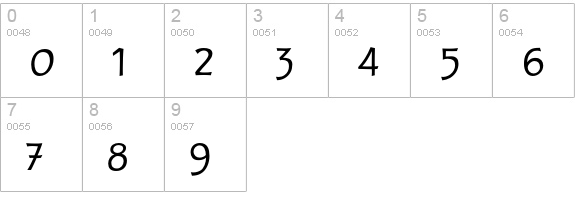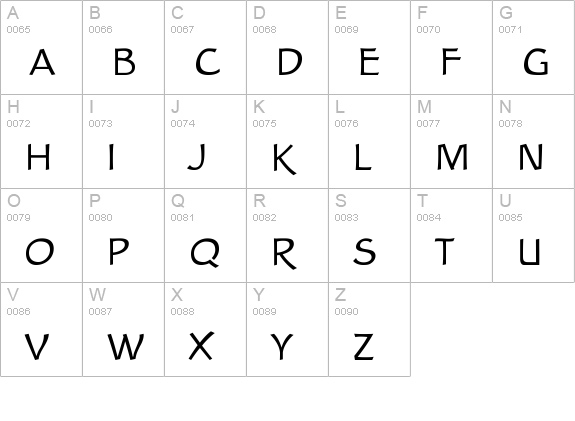
Clair-Light is a refined, elegant variant in the Clair typeface family \xE2\x80\x94 well suited to elegant body text, refined sub-headings, and luxury branding.
Introducing Clair-Light font, a modern and elegant typeface that exudes sophistication and style. With its sleek lines and graceful curves, Clair-Light is perfect for adding a touch of refinement to any design project. Whether you're creating a logo, branding materials, or a stunning website, this versatile font will elevate your work to the next level. The best part? Clair-Light is completely free to download at FontsMarket.com. This means you can access this beautiful font without any cost, making it a valuable addition to your font collection. Don't miss out on the opportunity to enhance your designs with the timeless beauty of Clair-Light. Download it today and see the difference it can make in your projects.